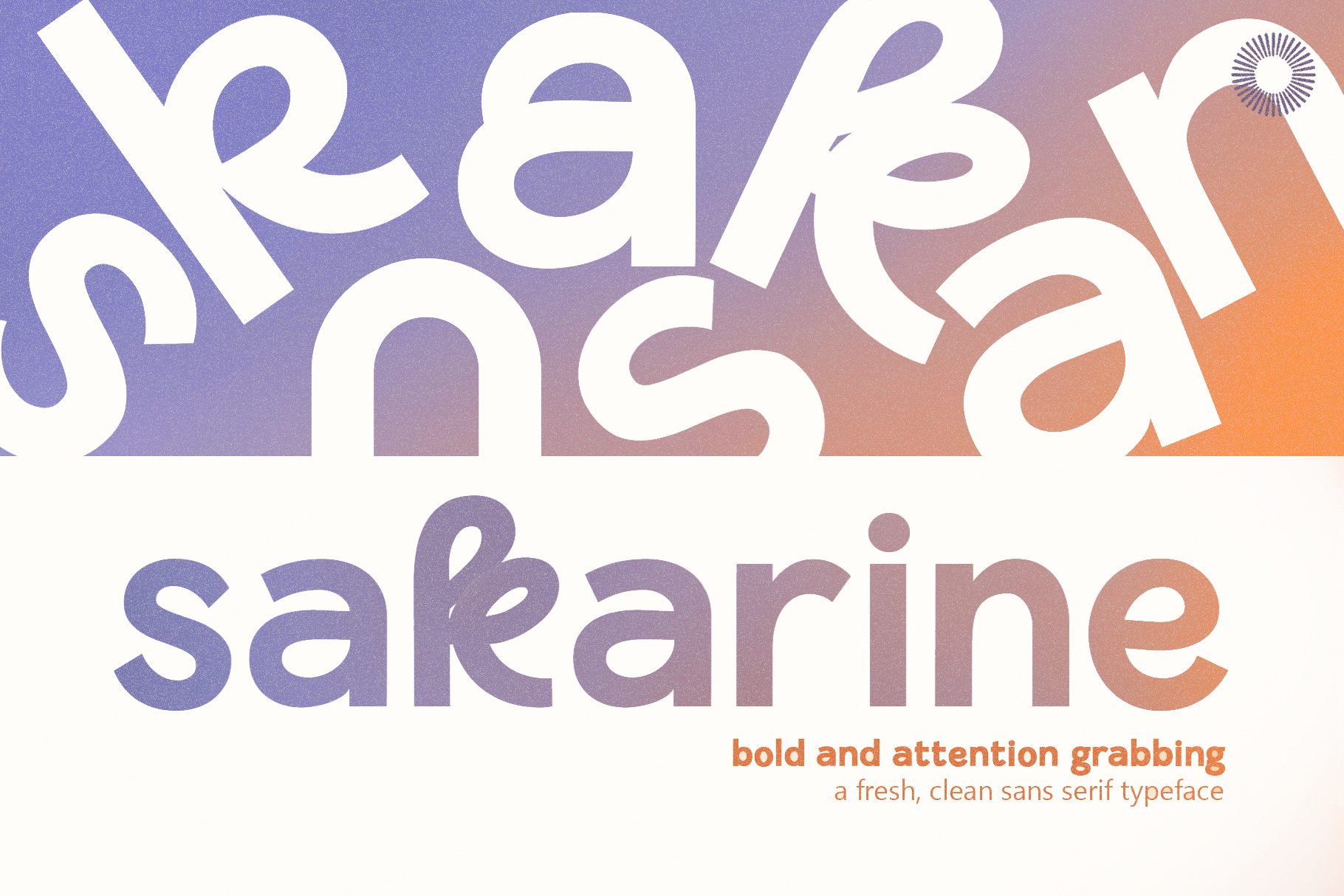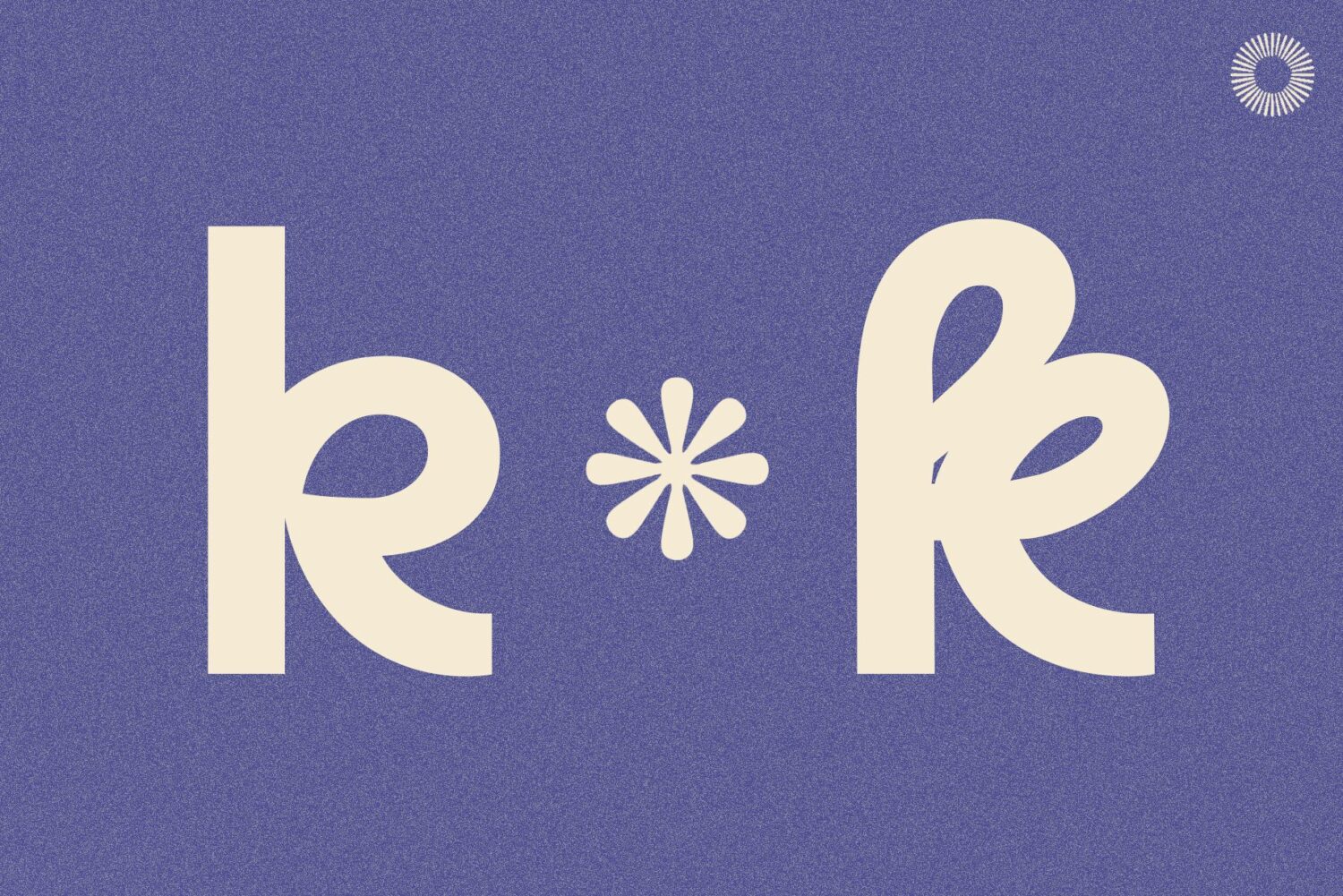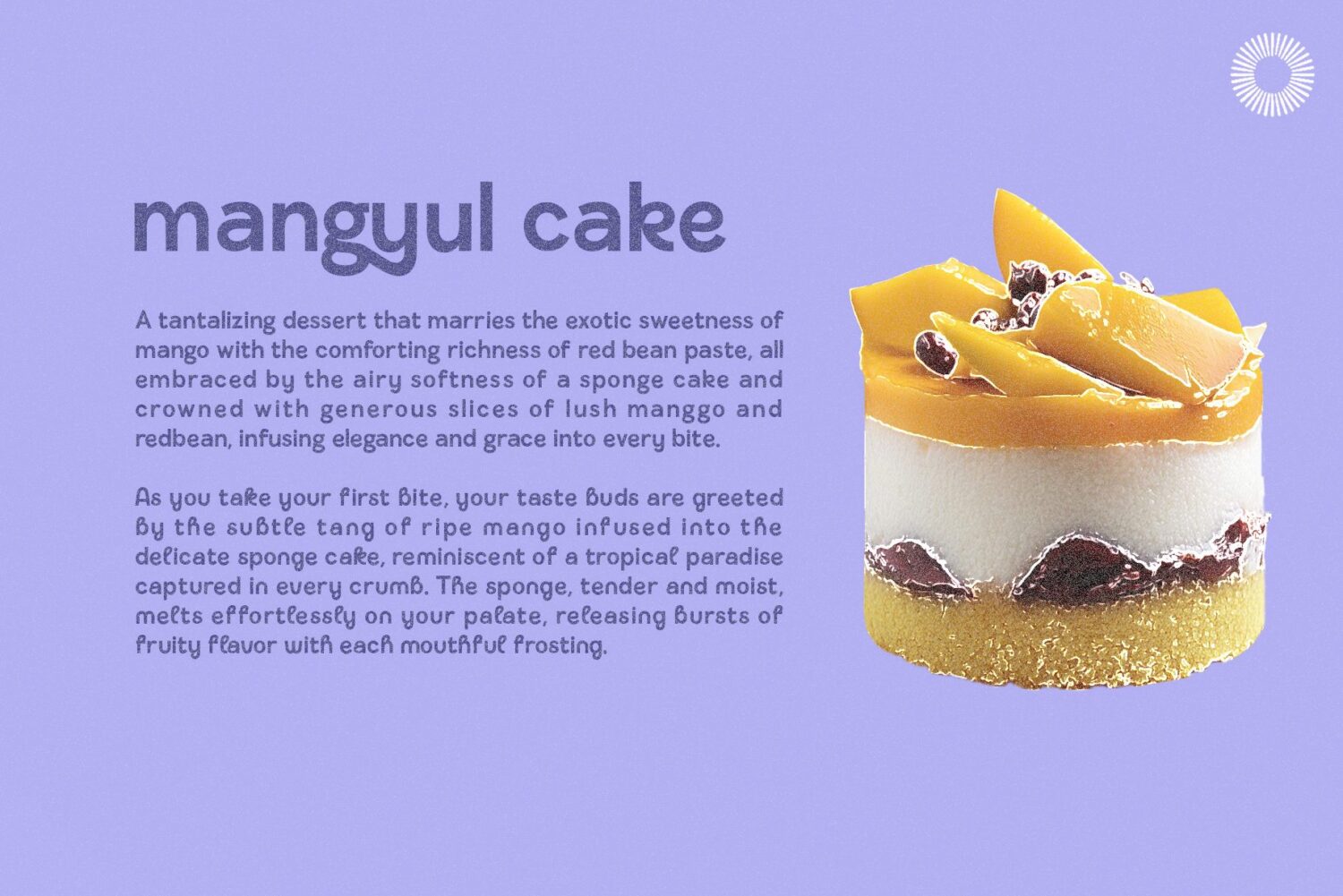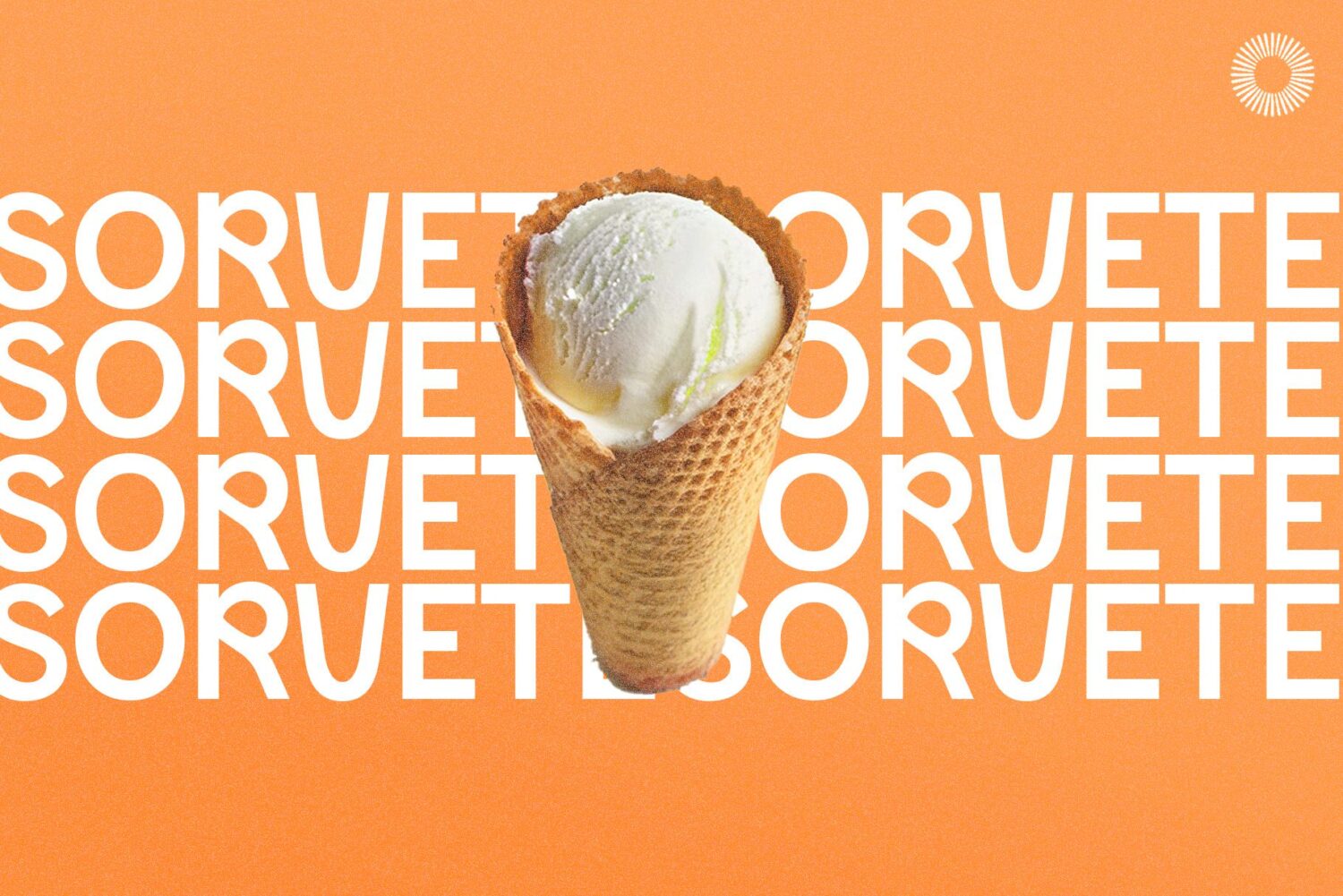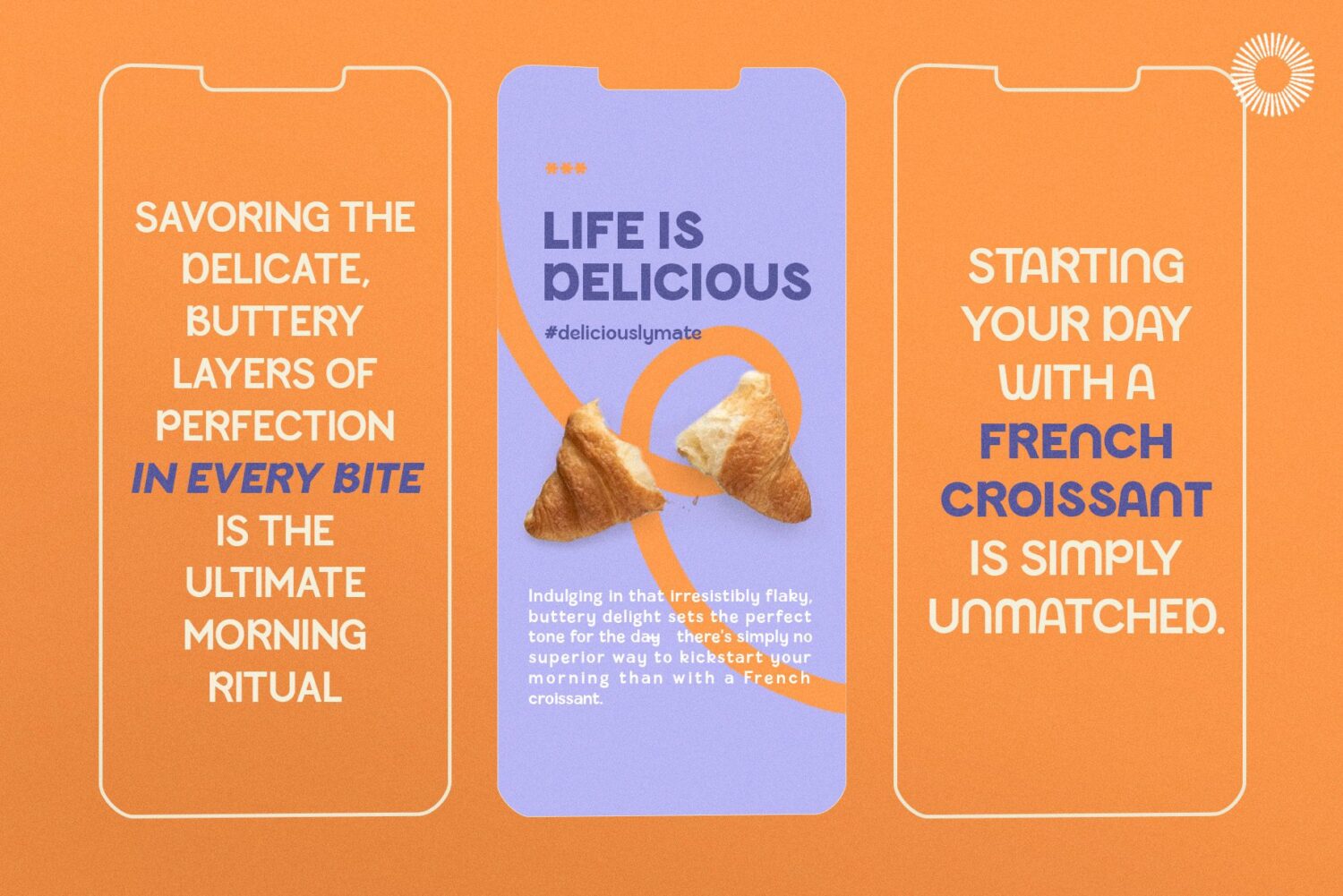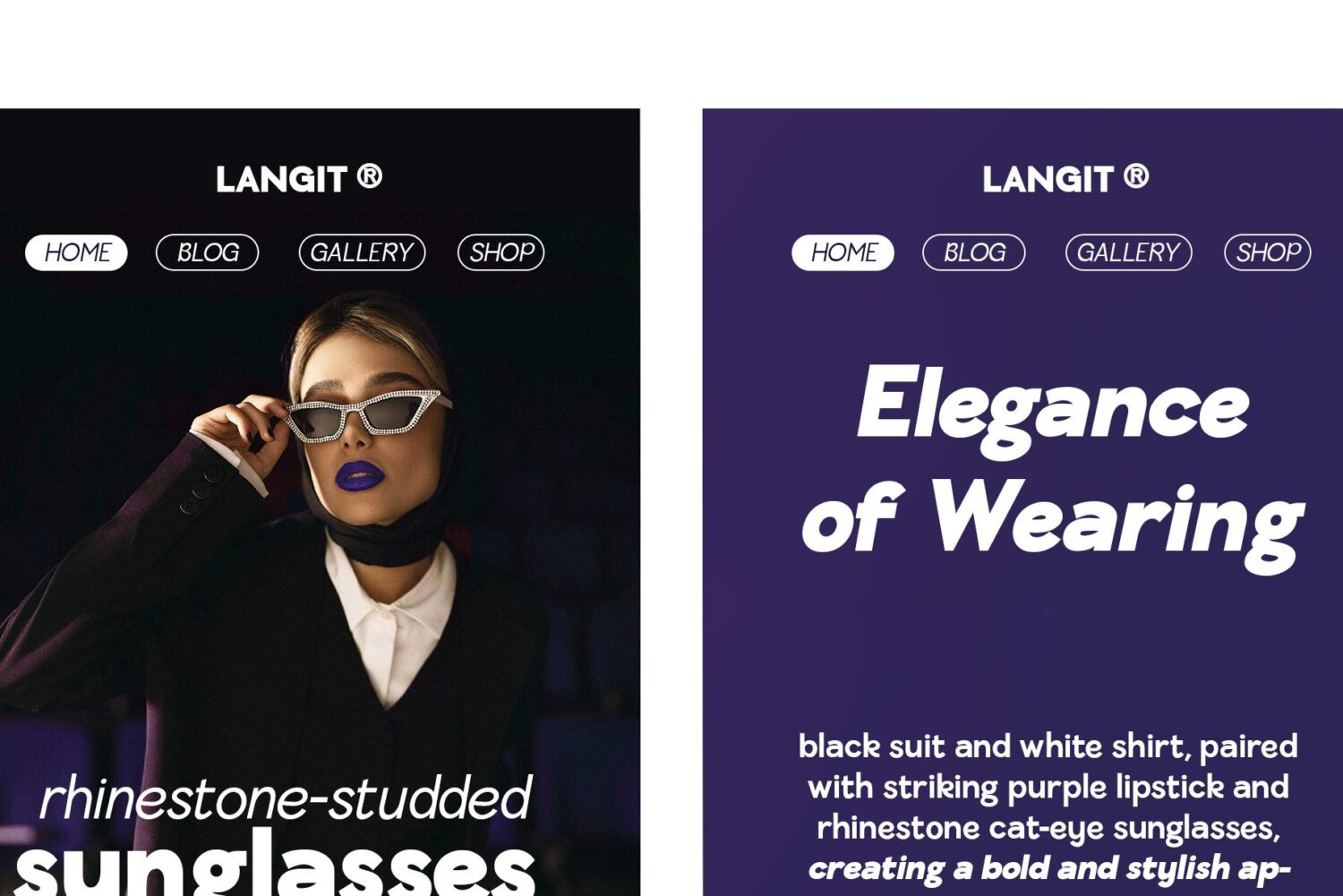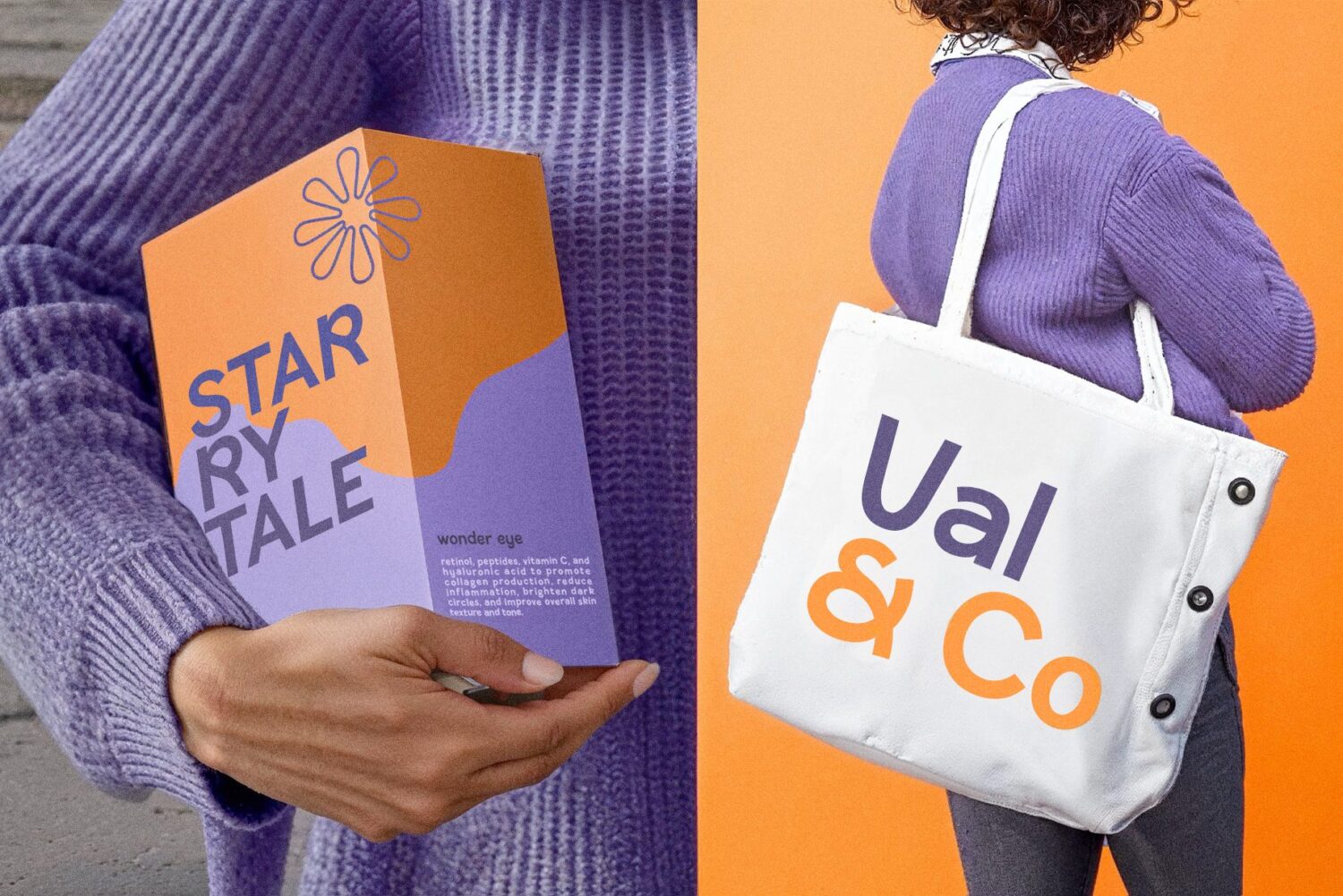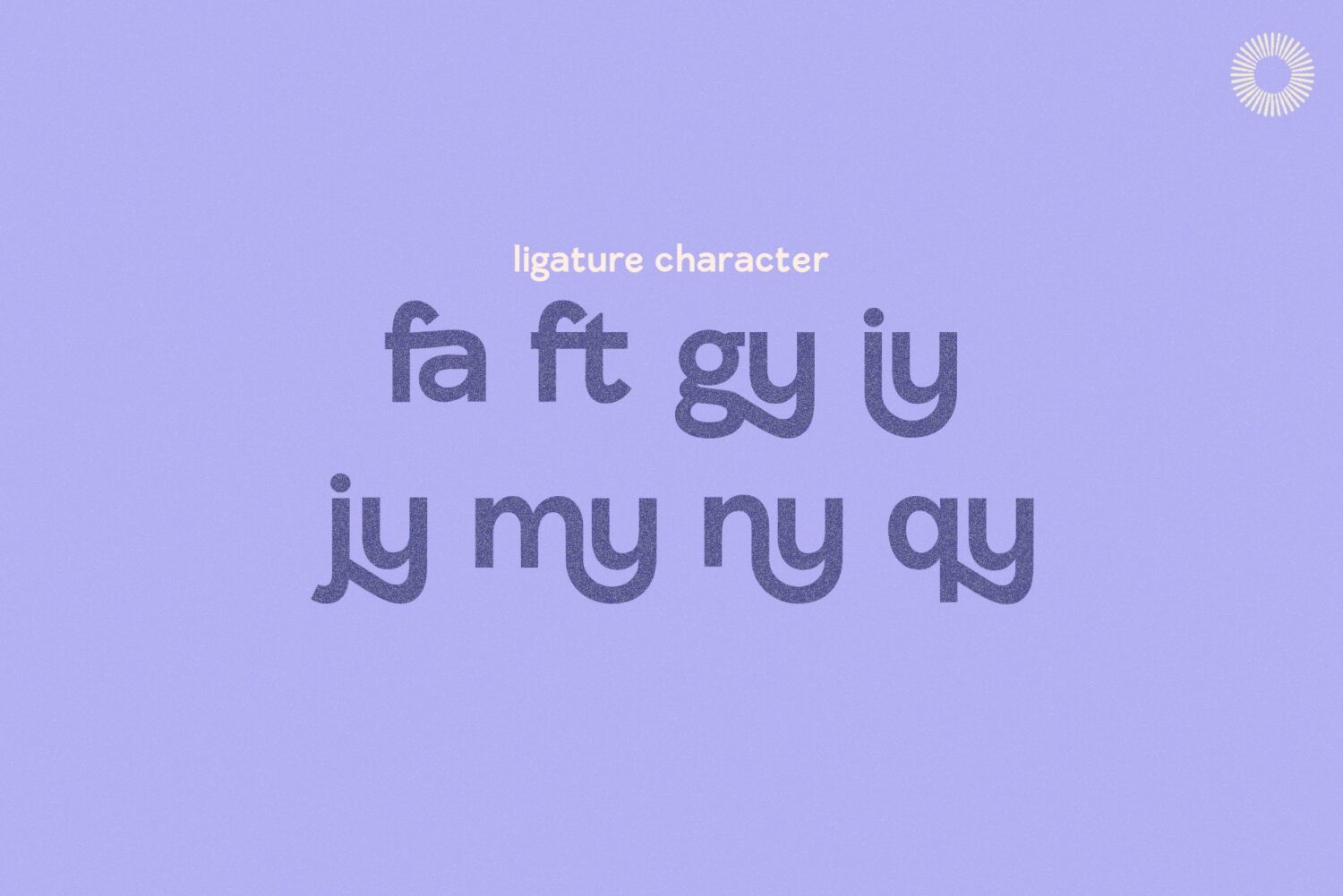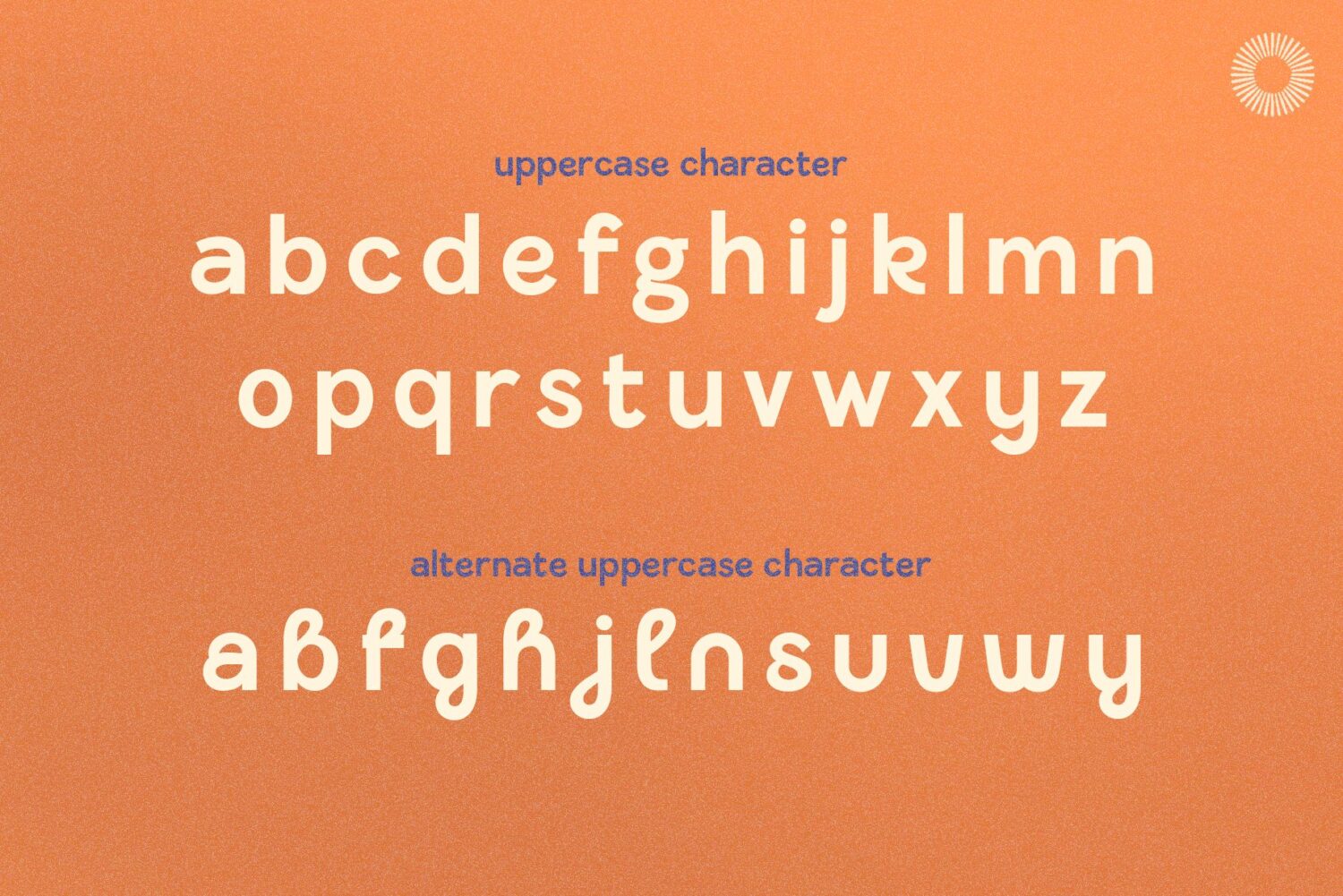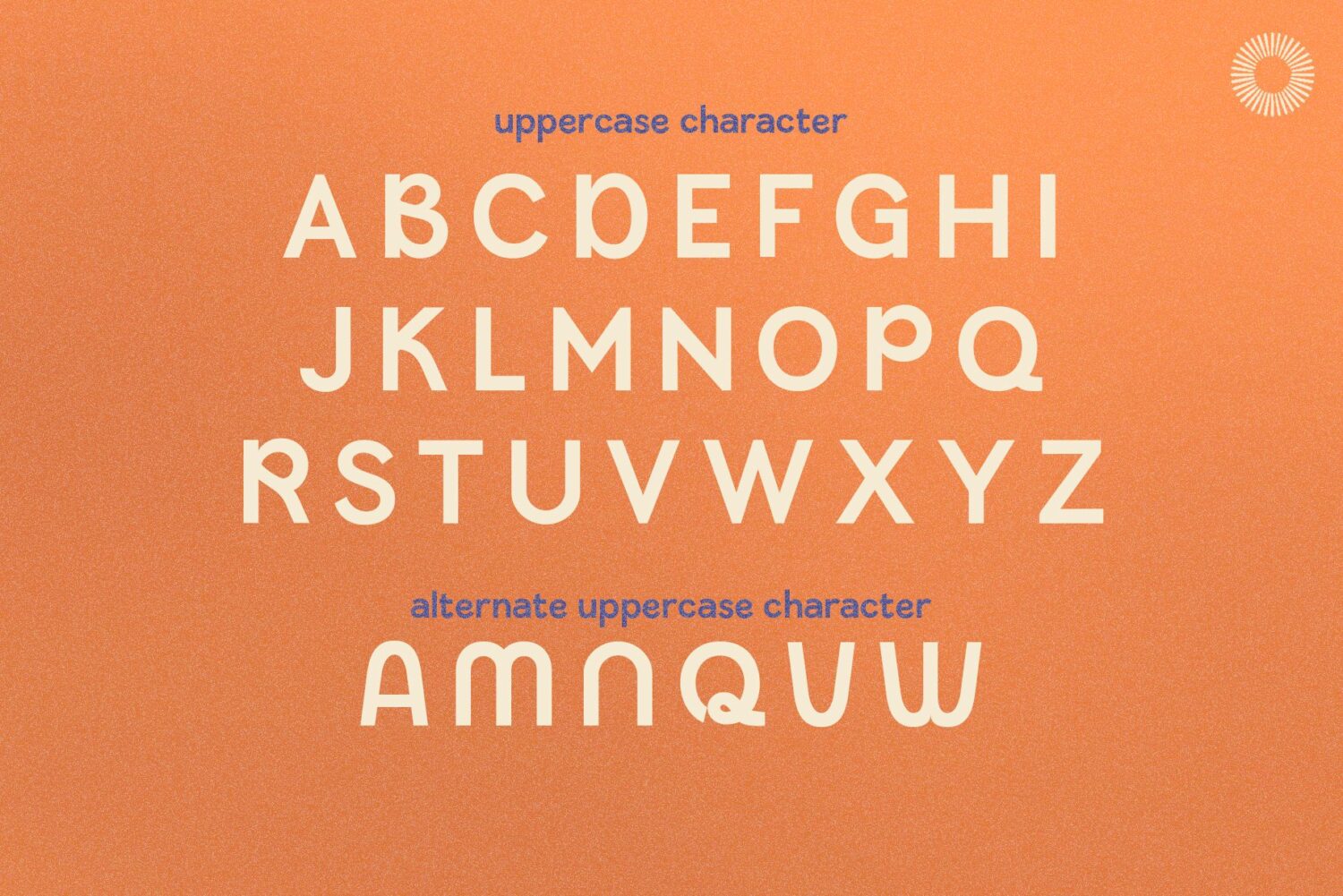
Bold Sans Serif Font
Sakarine Thin
Sakarine Light
Sakarine Regular
Sakarine Bold
Sakarine Black
Sakarine – Sans Serif Font
Hi, this is “Sakarine” . It was designed in 2024 by Siela Mara for Setara Langit. Sakarine is a fresh, clean sans serif font. It embodies our creative journey: beginning with the aim of crafting a practical, readable, harmonious text typeface. Yet, inevitably, we found ourselves compelled to infuse it with bolder stylistic elements. Almost spontaneously.
• Multilingual support
• Uppercase & lowercase
• Numerals & punctuation